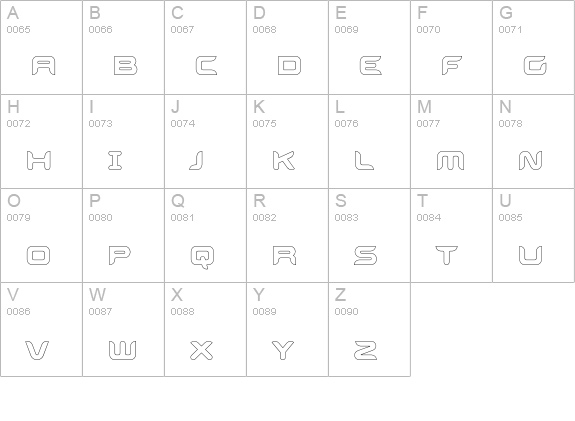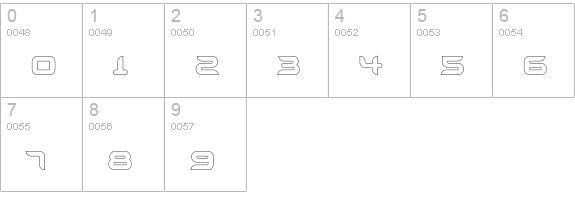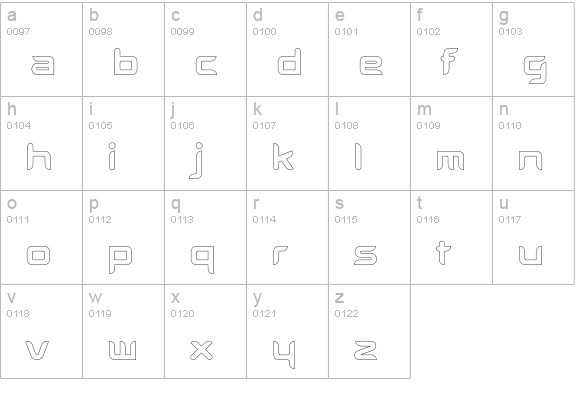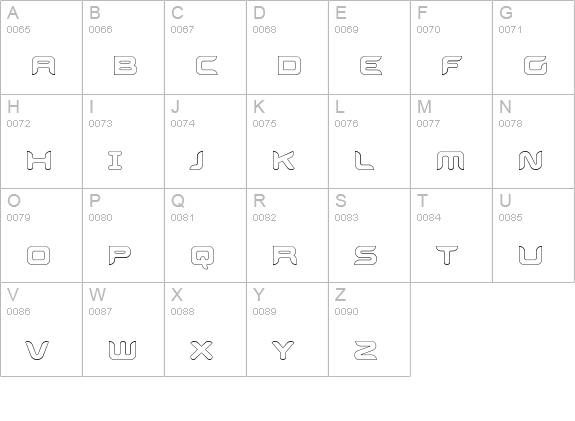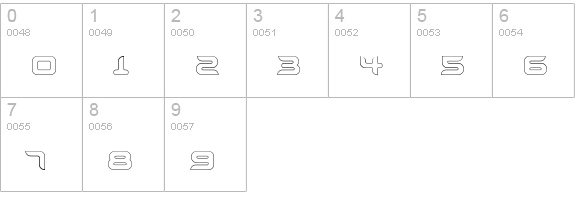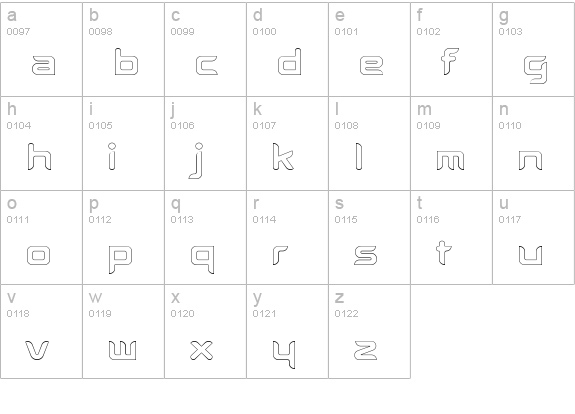
Aura-Outline Font Details
Aura-Outline font is a beautifully crafted typeface that exudes elegance and sophistication. Its delicate outlines and modern design make it perfect for a wide range of creative projects. The sleek and stylish appearance of this font adds a touch of luxury to any design. Whether you are creating a logo, wedding invitation, or social media graphics, Aura-Outline font will elevate your design to the next level. What's even better is that Aura-Outline font is available for free download at FontsMarket.com. This means you can easily access this high-quality font without any cost, making it a fantastic option for both personal and commercial use. Don't miss out on the opportunity to enhance your projects with the stunning Aura-Outline font today!